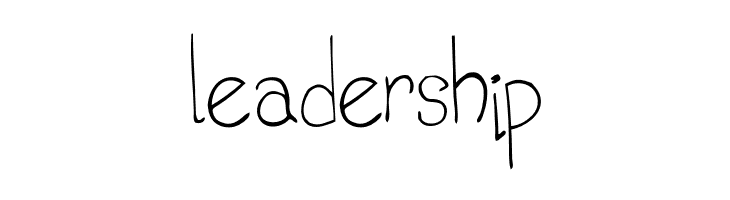
A graceful script font with fluid, connected strokes and a natural handwriting style.
A delicate and elegant script font with flowing, thin strokes.
A hand-drawn, textured font with a casual and artistic style.
A bold, playful display font with artistic and whimsical elements.
A playful, artistic font with abstract facial elements in each letter.
A bold, decorative font with a double-line shadow effect.
A dynamic and flowing script font with elegant, cursive letterforms.
A bold, textured brush font with a dynamic and edgy style.
A modern, decorative font with elegant uppercase and script-like lowercase letters.
A bold, dynamic font with elongated, irregular letterforms conveying energy and movement.
A playful, hand-drawn font with tall, narrow characters and bold strokes.
A bold, elongated font with a vintage, narrow style and tight spacing.
A playful, narrow font with moderate contrast and unique character designs.
A dynamic and elegant script font with fluid, cursive strokes.
A dynamic, cursive handwritten font with fluid strokes and elegant connections.
A bold, ornate blackletter font with a medieval, gothic style.
A bold, ornate blackletter font with intricate details and gothic flair.
A dynamic and elegant script font with smooth, flowing letterforms.
A bold, modern sans-serif font with excellent readability and versatility.
A modern, bold, and italicized typeface with medium contrast and sleek design.
A modern, geometric sans-serif font with clean lines and balanced spacing.
A sleek, modern italic font with thin strokes and a dynamic appearance.
A modern, italic sans-serif font with clean lines and balanced spacing.
A modern, light sans-serif font with clean lines and excellent readability.
A sleek, modern, light italic sans-serif font with a clean and elegant design.
A modern, geometric sans-serif typeface with balanced proportions and consistent stroke widths.
A modern, italic sans-serif font with medium weight and clean lines.
A modern, geometric sans-serif typeface with medium contrast and excellent readability.
A modern, geometric sans-serif font with a clean and professional look.
A modern, semi-bold italic sans-serif font with smooth strokes and medium contrast.
A cursive, handwritten-style font with elegant, flowing strokes.
A fluid, elegant script font with a natural handwriting style.
A bold, playful handwritten font with rounded, smooth strokes.
A casual, handwritten font with a playful and informal style.